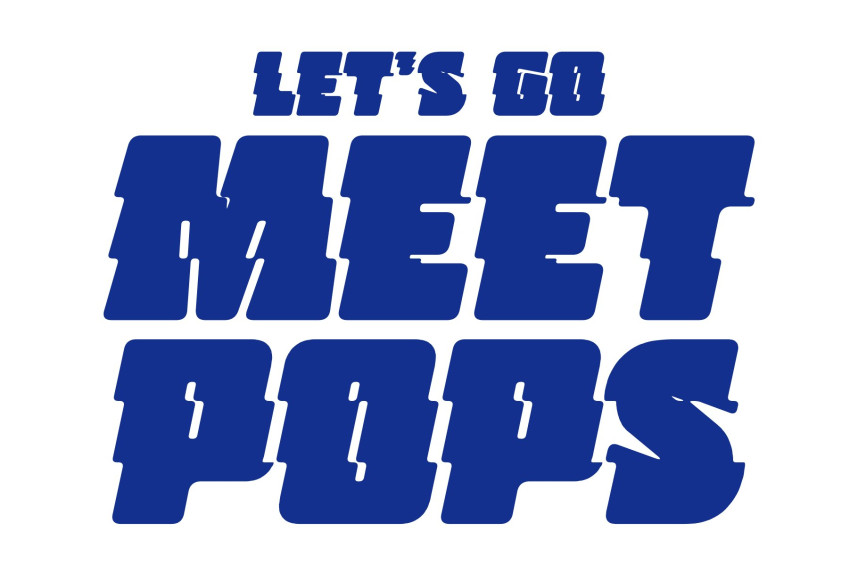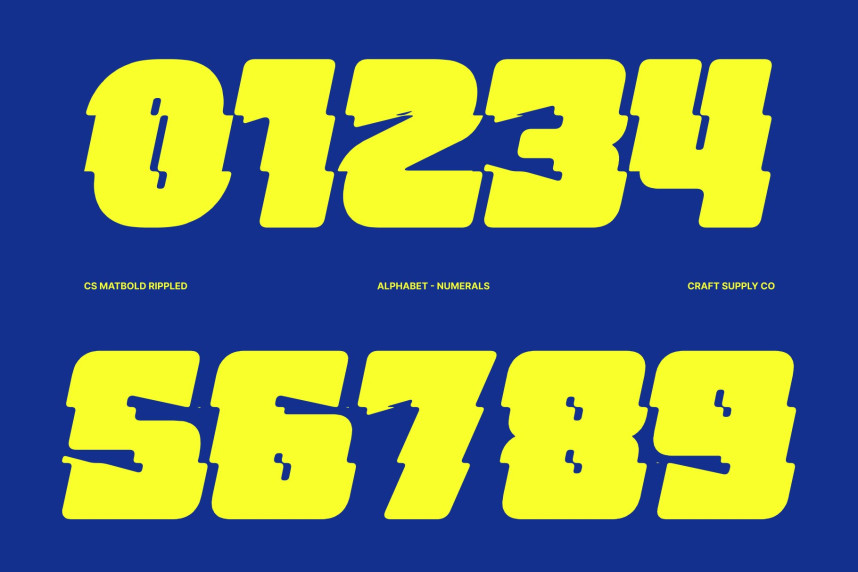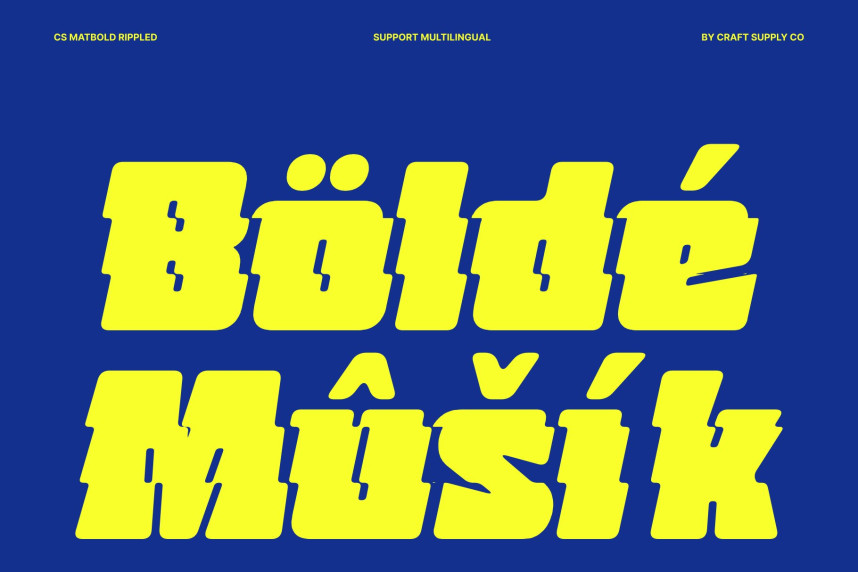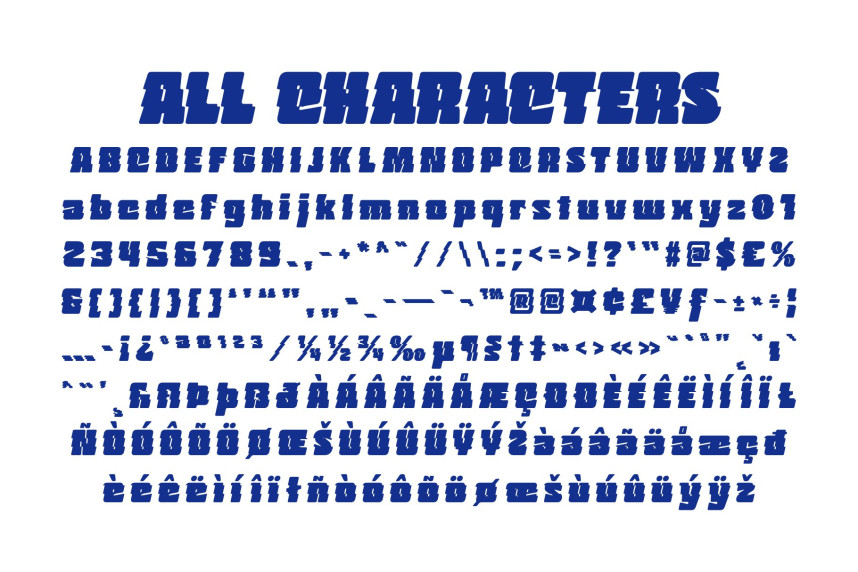
CS Matbold Rippled Font
CS Matbold Rippled Font – Futuristic Strength with Liquid Bold Impact
Modern Thick Font with Commanding Presence
This is a bold modern sans serif font designed to deliver instant visual authority through its thick and commanding letterforms. Every character is built with strong proportions and confident structure, creating typography that feels powerful, stable, and impossible to overlook. Its heavy construction gives designs a dominant visual voice, making it perfect for projects that require maximum visibility and strong visual identity.